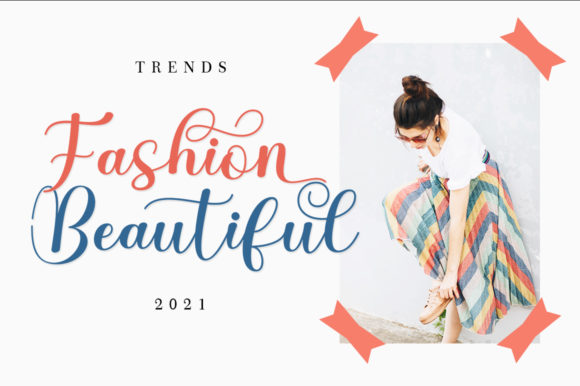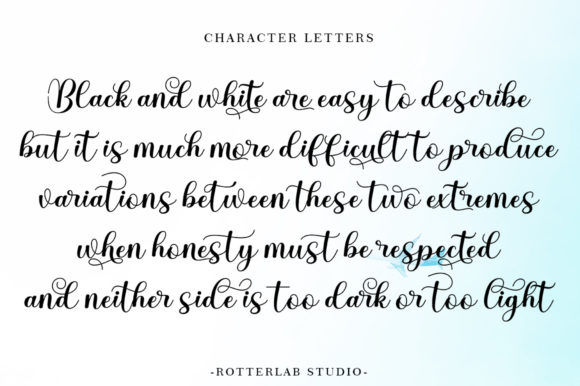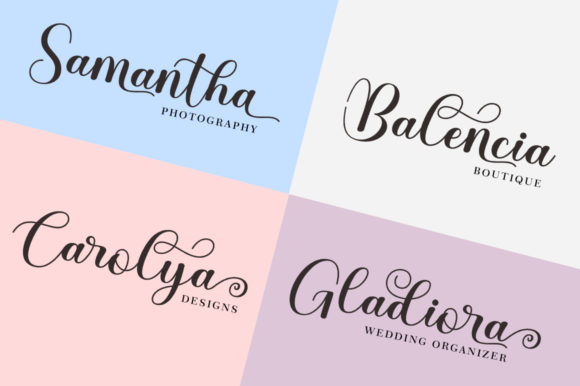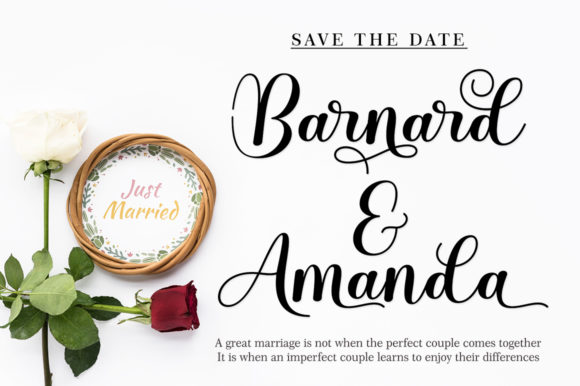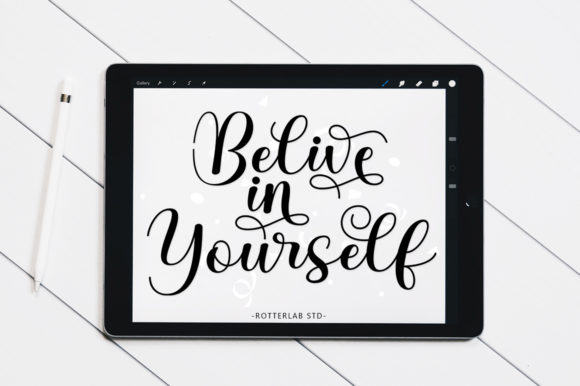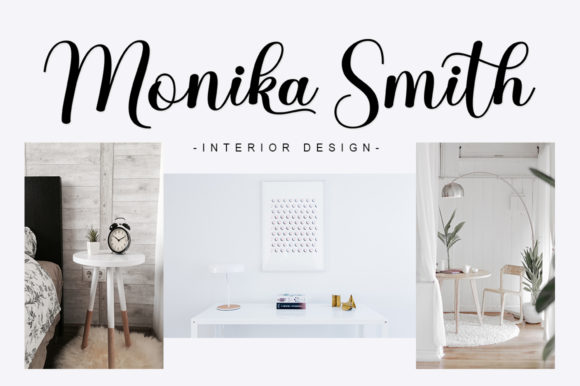
Discover the Timeless Charm of Baby Heart Font
There’s nothing quite like the thrill of discovering a new font that sparks your creativity. For many designers, it’s a moment that can elevate their work from ordinary to extraordinary. And that’s exactly what happens when you come across the Baby Heart Font. This lovely and timeless handwritten font is a designer’s dream come true, perfect for creating eye-catching logos, branding, and quotes that leave a lasting impression.
The Baby Heart Font is a versatile tool that adds a unique and beautiful touch to any design. With its PUA encoded features, accessing all the glyphs and swashes is a breeze, allowing you to unleash your creativity and bring your designs to life. Whether you’re a seasoned designer or just starting out, the Baby Heart Font is a valuable addition to your toolkit, sure to inspire and delight your clients and audience alike.
Baby Heart Font Key Features
- Font Style: Handwritten Script Font, perfect for creating a personal and unique touch in designs.
- Unique Characteristics: Features a playful and cursive design, with a mix of rounded and pointed letters, giving it a distinctive and endearing feel.
Designer Review: Baby Heart Font
Overall, I found the Baby Heart Font to be a delightful, whimsical addition to any design project. ✨
- The unique, hand-drawn style of the font gives it a charming, one-of-a-kind feel.
- The font is well-suited for use in children’s books, nursery decor, and other projects that require a playful touch.
- The font is highly legible, even at smaller font sizes.
- ⚠️ The font is limited in its range of characters, with only basic letters and numbers available.
- ⚠️ The font may not be suitable for use in professional or formal settings, due to its playful nature.
- ⚠️ The font may not be as versatile as some other fonts, due to its limited style and functionality.
Overall, I would recommend the Baby Heart Font for designers looking to add a touch of whimsy and personality to their projects. However, it’s essential to consider the limitations of the font and use it in a way that’s consistent with its unique style and character.
The Baby Heart Font is perfect for creating baby-themed designs, such as nursery decorations, baby shower invitations, and personalized baby gifts. To get the most out of this font, use it in combination with other playful and cursive fonts to create a whimsical and childlike atmosphere.